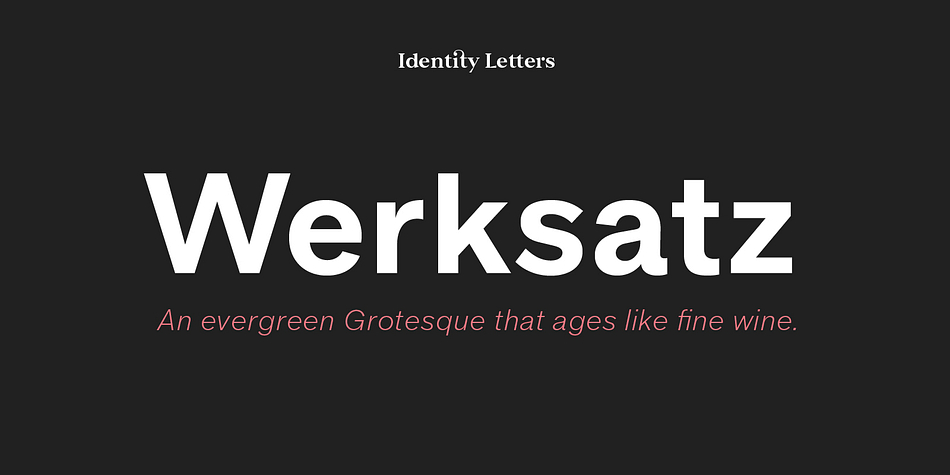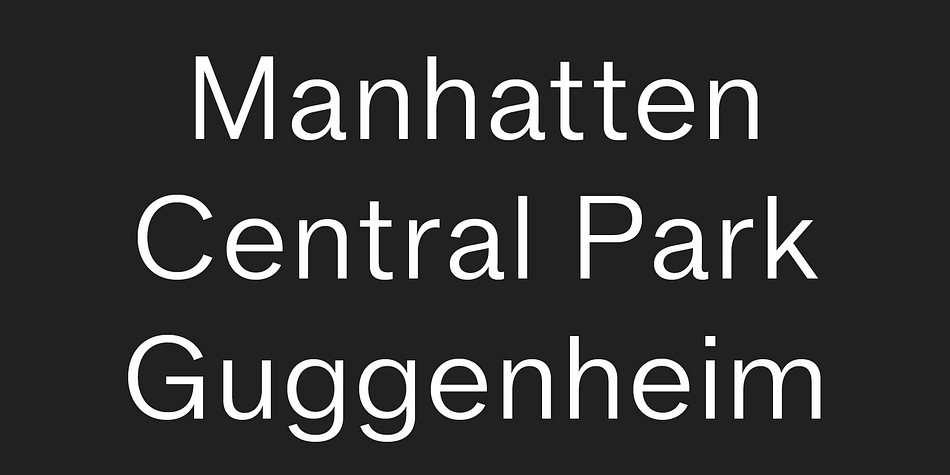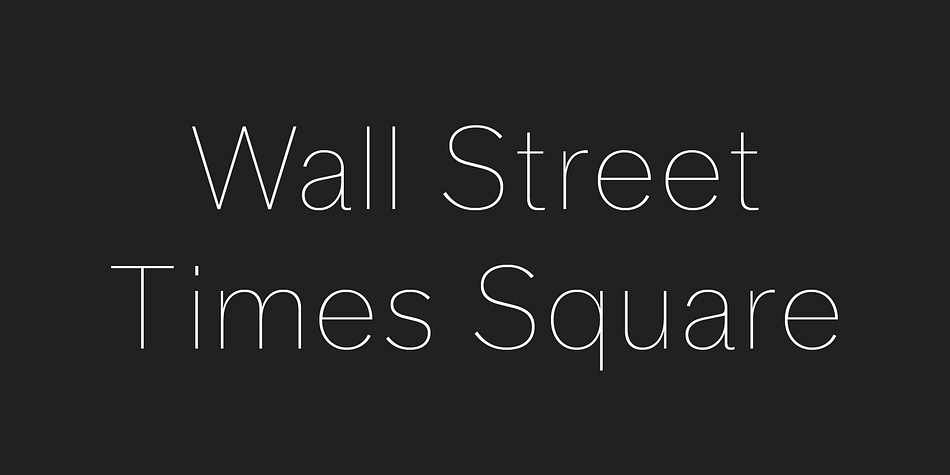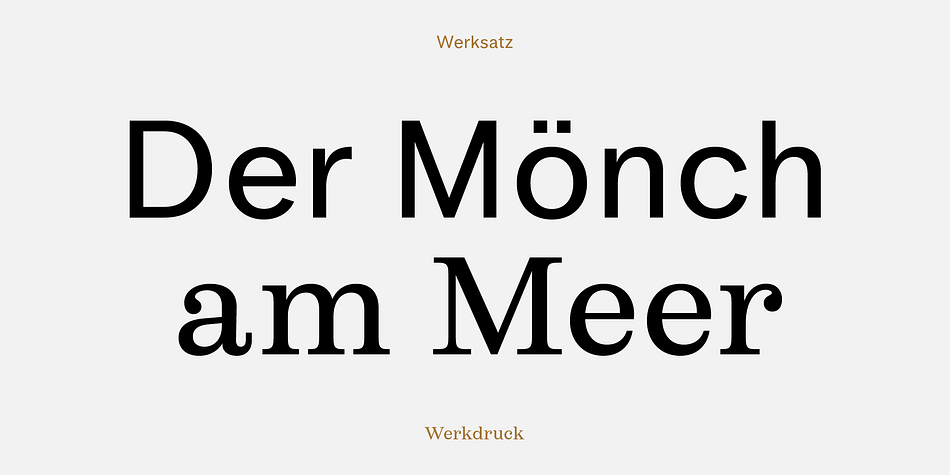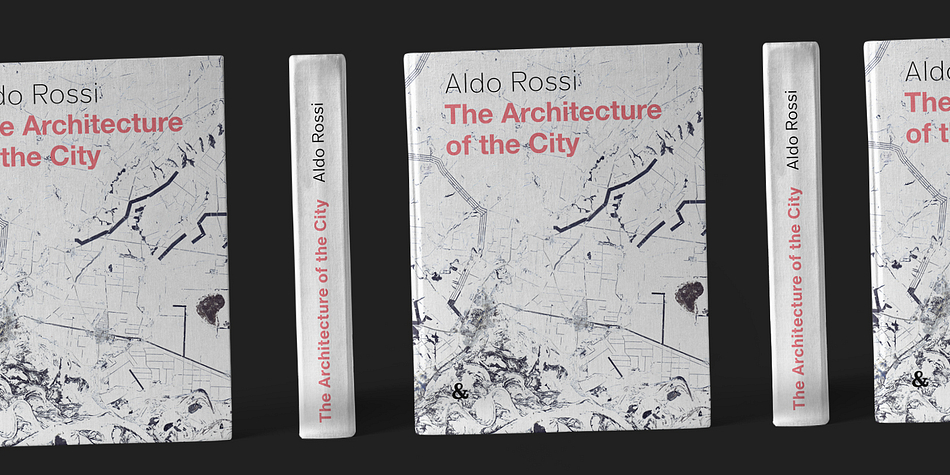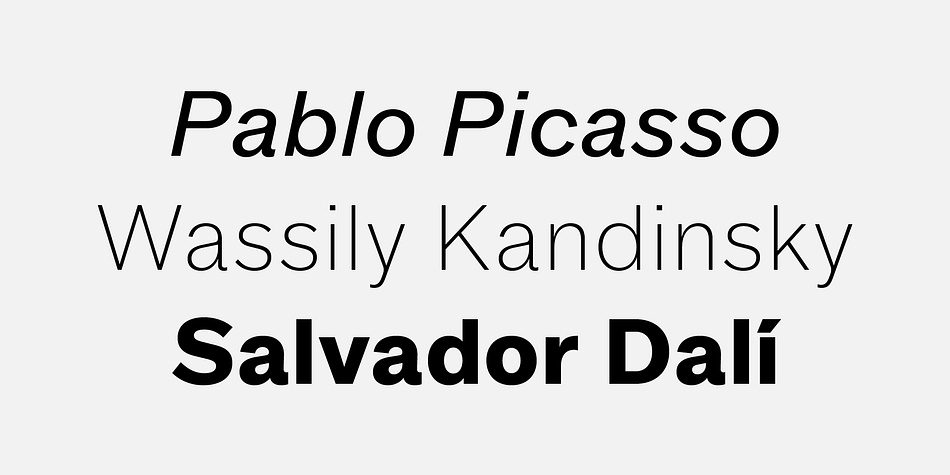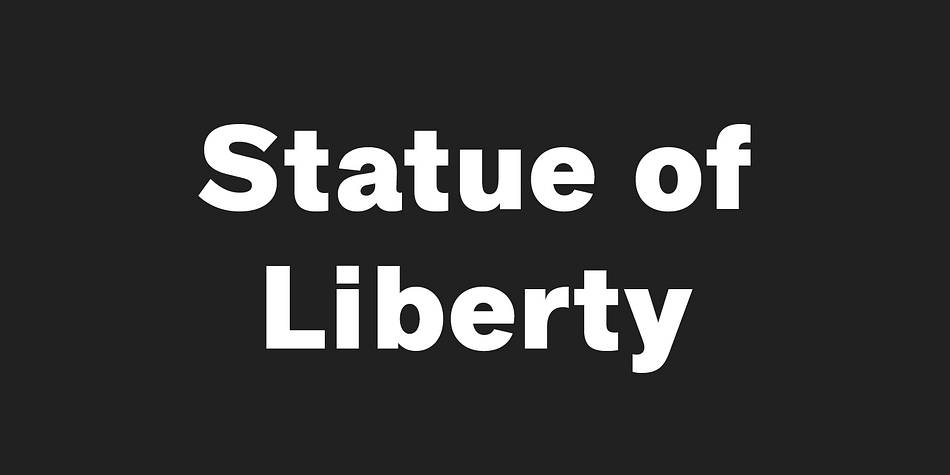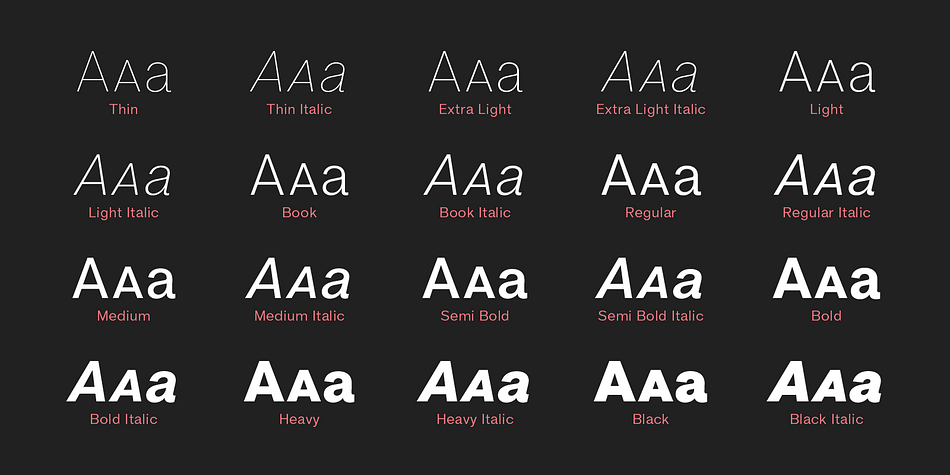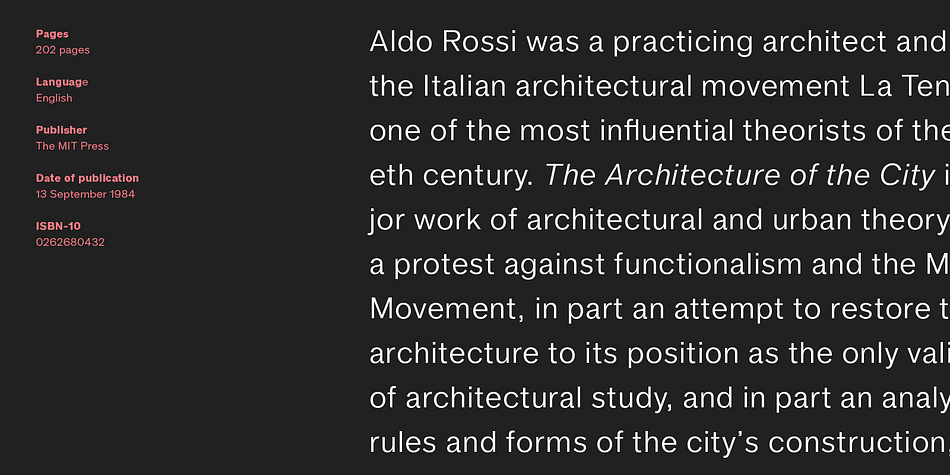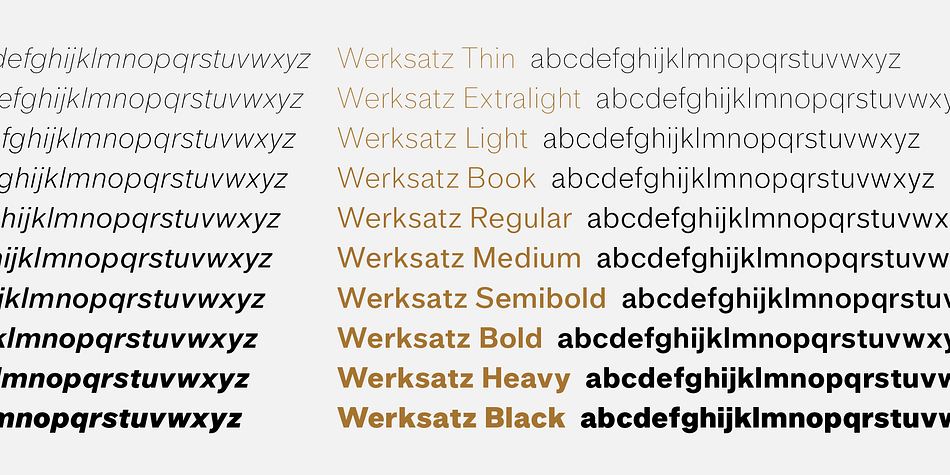
Werksatz
Designed by Moritz Kleinsorge, Werksatz is a sans serif font family. This typeface has twenty styles and was published by Identity Letters.
Inspired by early grotesque typefaces such as Akzidenz Grotesk and Venus, Werksatz is our contemporary interpretation of this beloved genre.
Some things are timeless. These are the things that only get better with use. The aforementioned typefaces certainly belong into this category. Rediscovered by designers from every generation again and again, they are here to stay.
However, as tools evolve and technology moves on, even a well-tried design has to adapt to this evolution continuously in order to stand the test of time. Werksatz is such an adaptation, taking the best from the invincible classics and infusing them with the warm blood of today’s tech.
With 10 weights from Thin to Black, each with painstakingly fine-tuned obliques, and more than 940 characters per style, this font family is ready for the future. Its Extended Latin support ensures you won’t miss a letter in any of hundreds of languages. Special glyphs like three variations of arrows and additional shapes will make your design work so much easier—for well-structured forms as well as radical editorial layouts.
Among a treasure trove of OpenType features, you’ll find essentials such as Capital Spacing, Case-Sensitive Forms, and Ligatures, but also advanced functions like Small Caps, Subscript and Inferior figures and letters, plenty figure sets (Lining Figures, Tabular Figures, Old-Style Figures, circled and squared figures, figures for small caps … you get the idea), Slashed Zero, and more.
You’ll discover that Werksatz is less formalistic and rigid than your average neogrotesk typeface. Sure, you can use it for serious business—whether in corporate design, branding, editorial design, publication design, or web design for industries and topics ranging from politics, government, management, or law to technology, entrepreneurship, commerce, or finance. However, Werksatz is much more versatile than that. Its more human appearance also allows for effective use in culture, fashion, art, entertainment, sports, exhibitions, leisure, and luxury. It’s an excellent choice for wayfinding applications, apps, packaging, and all kinds of nonfiction books.
Other Grotesks with big names are left behind outdated by their proprietors, but Werksatz is here to stay. The classic industrial warmth of these letterforms will age like fine wine.